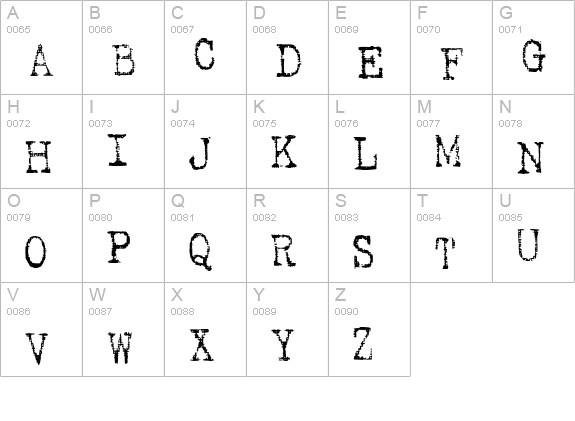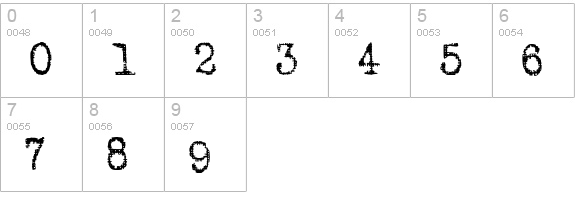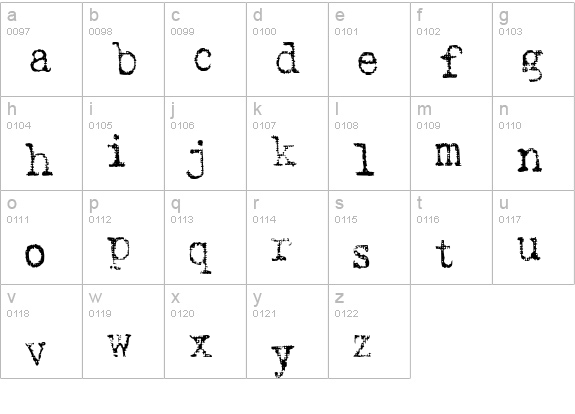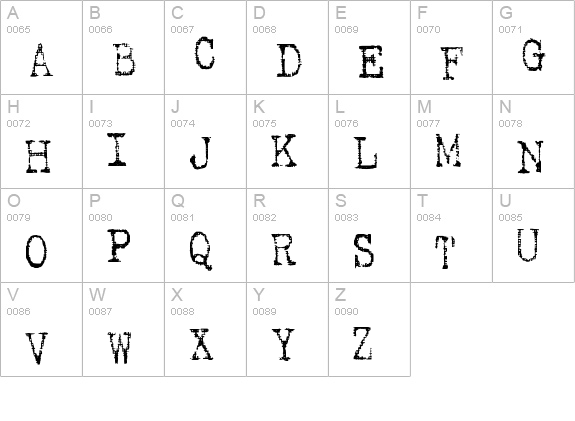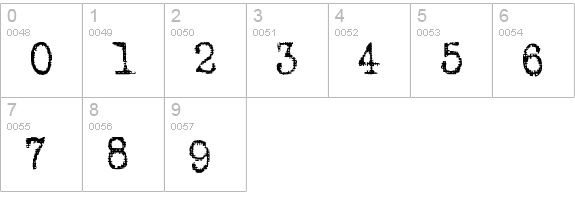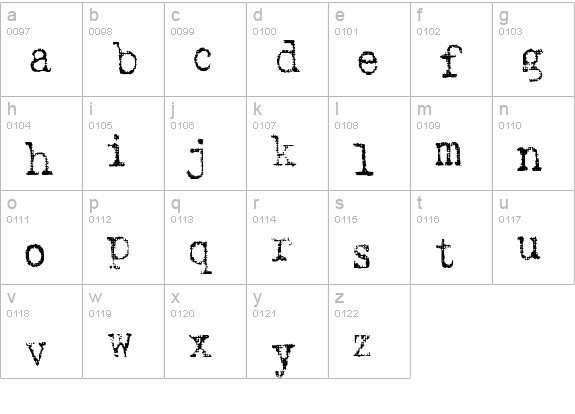
SA Inkspot Font Details
SA Inkspot is a unique and artistic font that brings a touch of creativity to any design project. With its uneven, hand-drawn strokes and ink splatters, this font exudes a sense of spontaneity and raw artistic expression. Each character has a charming irregularity, giving your text a playful and organic appearance. This font is perfect for adding a personal touch to your designs, whether it's for posters, invitations, greeting cards, or even branding materials. Its versatility allows it to be used in both bold headlines and delicate body text, making it a fantastic choice for various creative endeavors. The best part? SA Inkspot is absolutely free! You can easily download this font at FontsMarket.com, where it is readily available for all your design needs. Say goodbye to the hassle of purchasing expensive fonts and hello to the joy of freely adding a touch of artistic flair to your projects. So, why wait? Download SA Inkspot now and let your creativity flow freely with this captivating font. Whether you're an experienced designer or just starting out, this font is sure to inspire and elevate your designs to a whole new level.